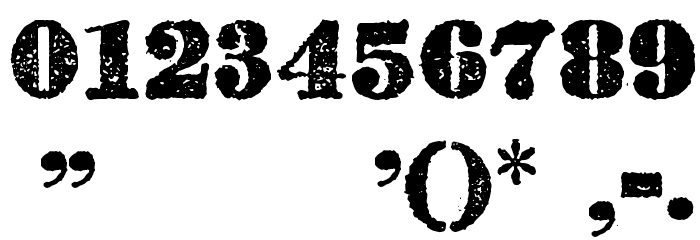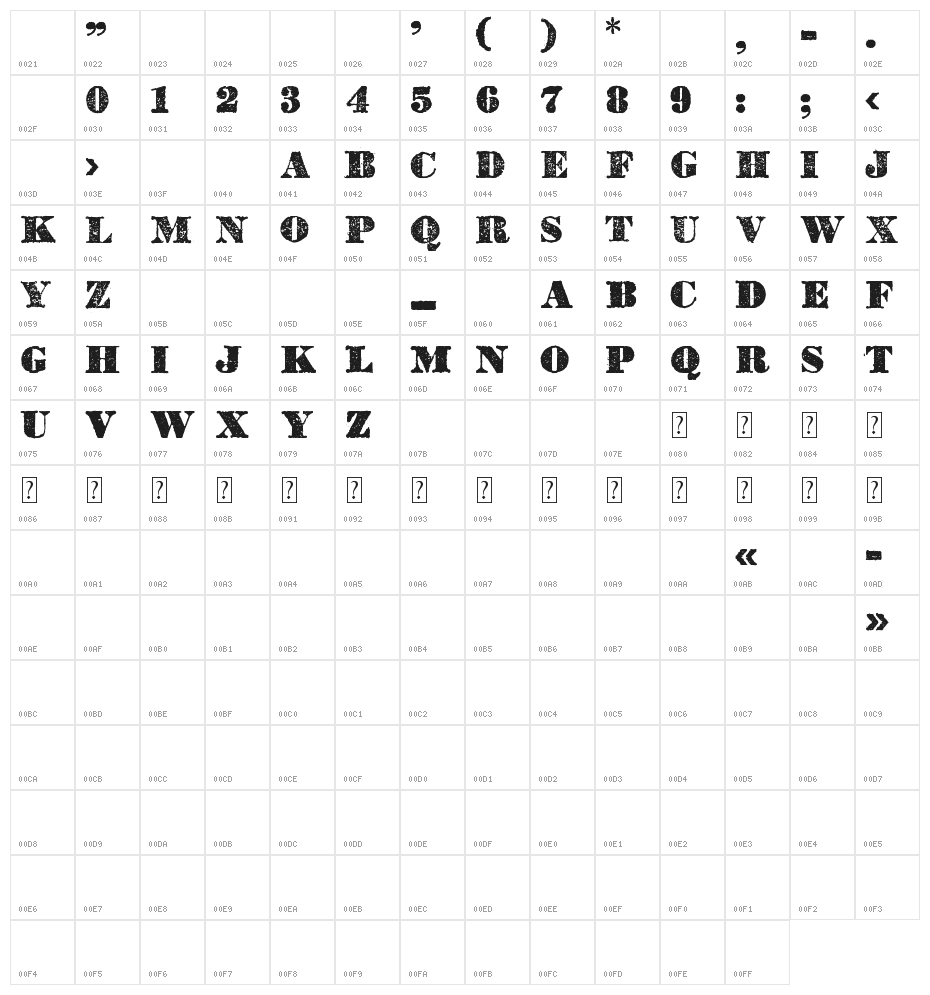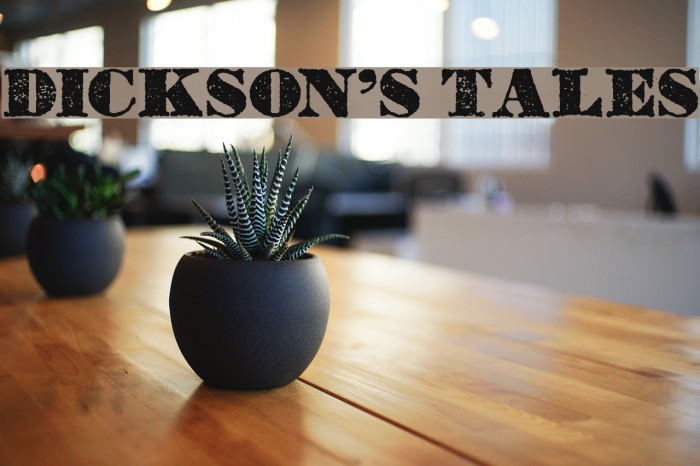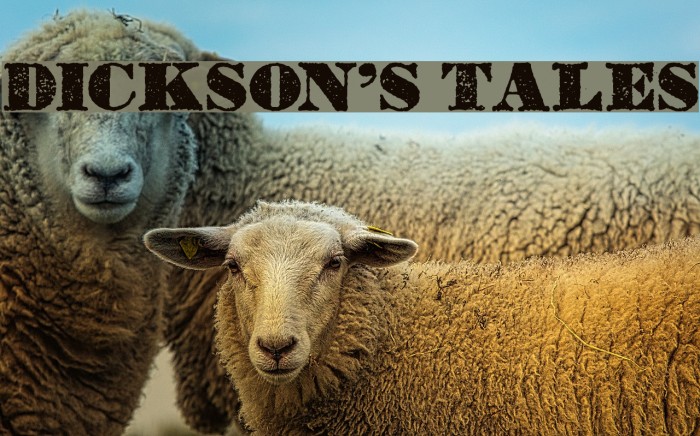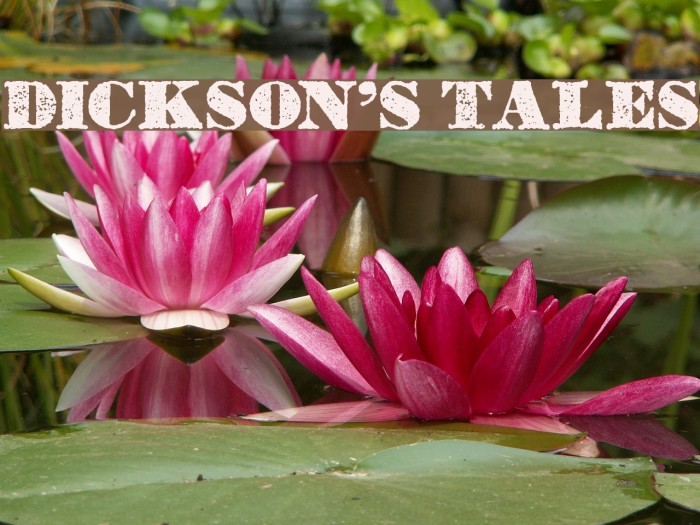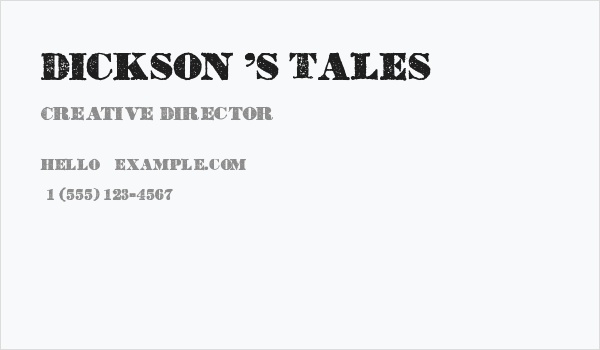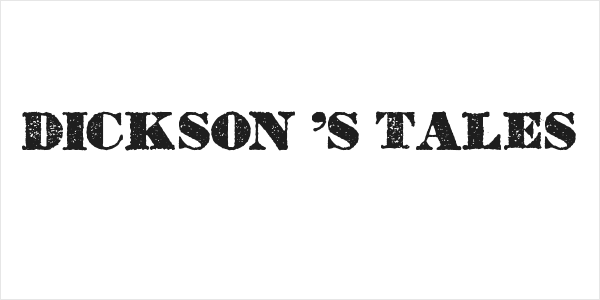
Dickson's Tales Font
Dickson's Tales Description
This font features a bold, distressed style with a vintage, textured appearance. The characters are robust and heavily weighted, giving them a strong presence. The distressed effect adds a rugged, worn look, making it ideal for designs that require a touch of nostalgia or a handcrafted feel. The uppercase and lowercase letters maintain a consistent style, with the numbers and special characters following suit. The overall design is reminiscent of old printing techniques, adding a unique charm to any project.
Proposed ProjectsPerfect for vintage posters, retro-themed branding, album covers, and rustic signage.